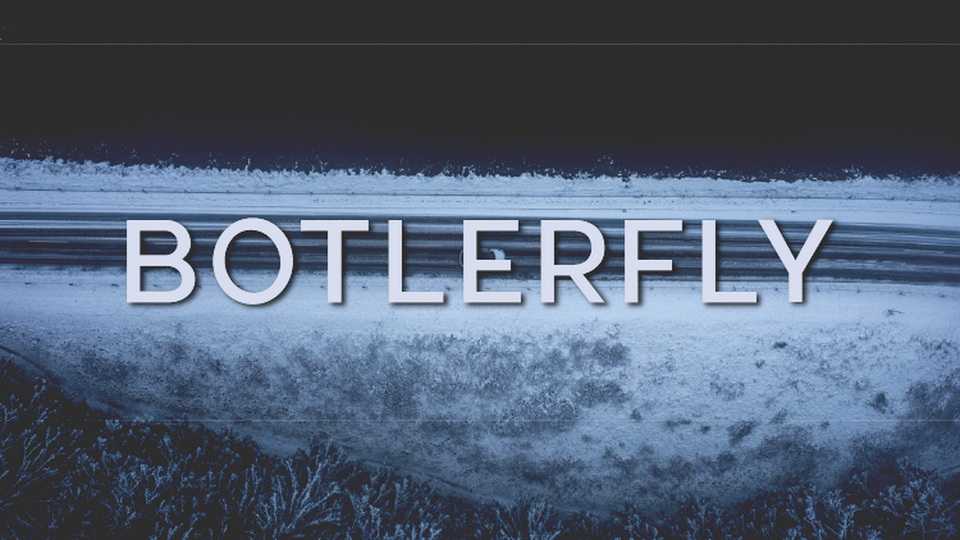
Download Botlerfly font, a clean and simple lettered sans serif typeface. No matter the topic, Botlerfly font will be an incredible asset to your fonts’ library, as it has the potential to elevate any creation.